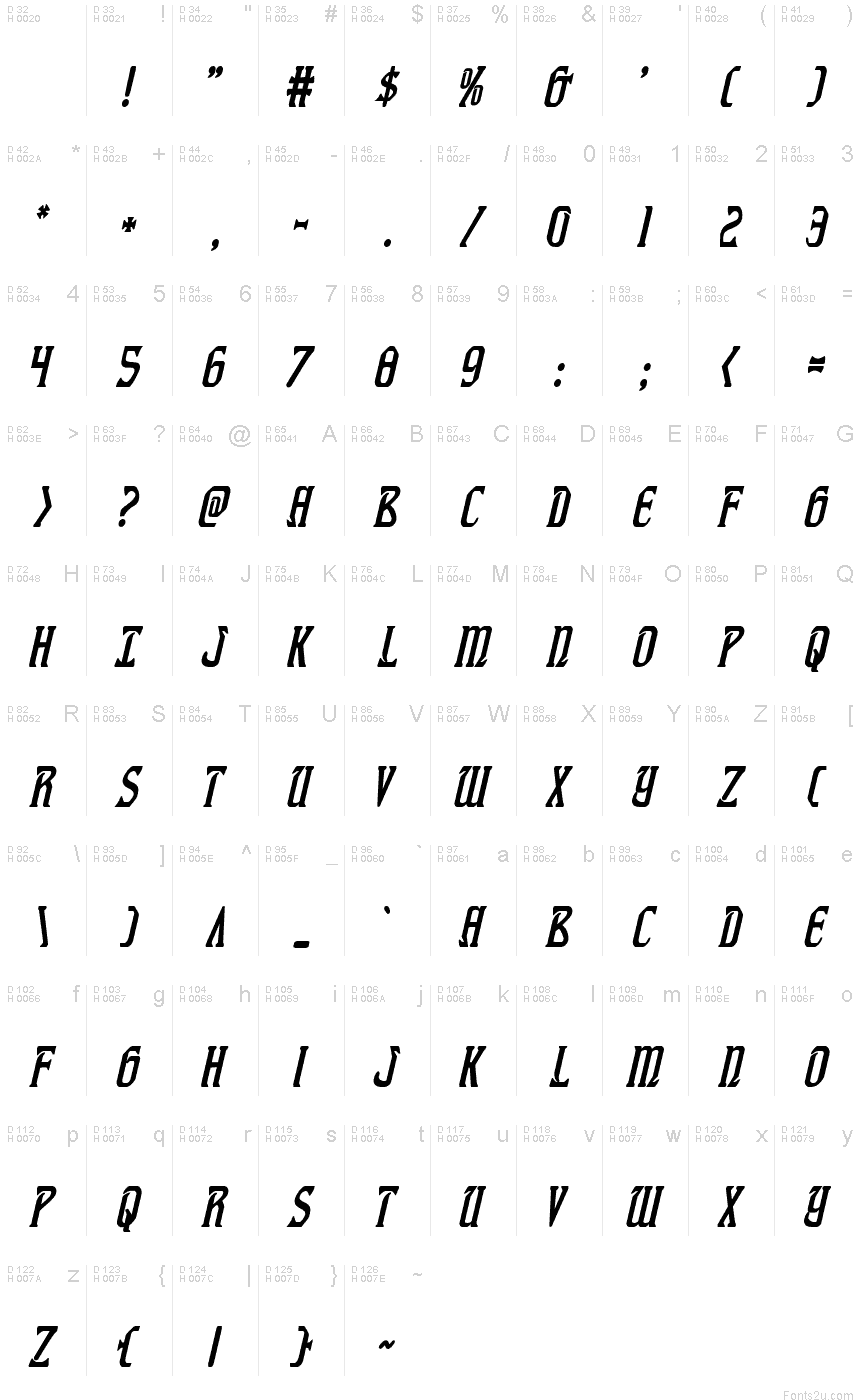
Fiddler's Cove Condensed Italic by Iconian Fonts is a free old-school display font with a steep forward lean and tightly drawn proportions. Its tall letters shift between broad black strokes and razor-thin joins, with hooked tips and deep diagonal cuts. The result has the swagger of vintage show cards and sideshow lettering.
Packaging is an especially good medium for its narrow, theatrical silhouette, making it suitable for hot sauces and spirits. It also fits music posters and period-minded magazine covers. Against nautical engraving, tattoo flash, or carnival illustration, the pointed forms can become part of the decorative artwork.
Fiddler's Cove Condensed Italic